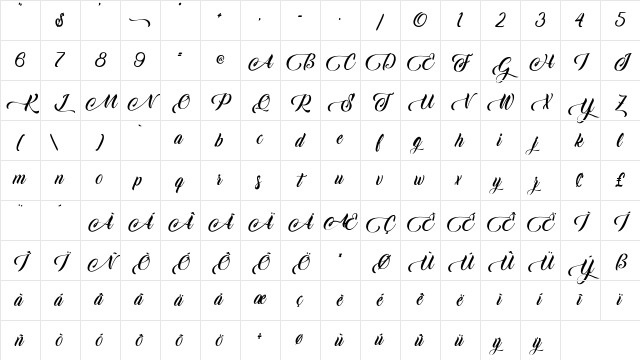
Complete Candle Mustard Regular glyph index. Displaying only characters natively supported by Candle Mustard Regular font.
Candle Mustard is a composed and adaptable typeface that performs quietly and consistently across a wide range of design contexts.